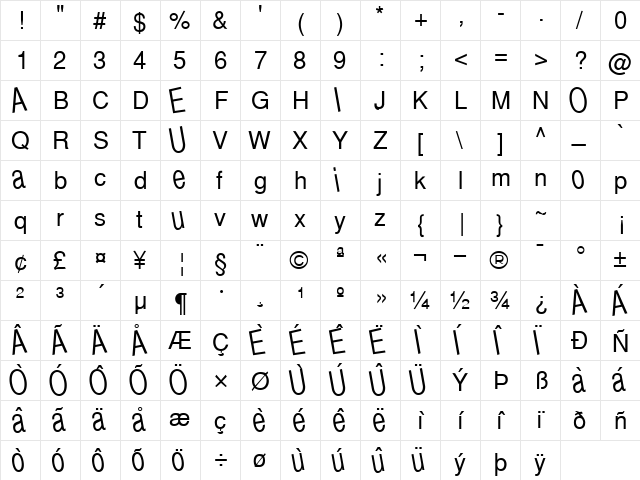
Quick Regular
Design Context for Quick Typeface
Quick is a composed and adaptable typeface that performs quietly and consistently across a wide range of design contexts.